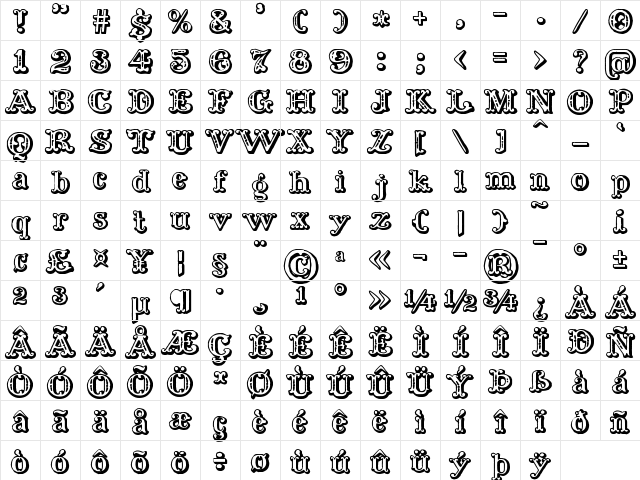
zai Arte Della Calligrafia 1929 Regular
Foundry: ZAI
Designer: Tomasz Skowro￿ski
Design Context for zai Arte Della Calligrafia 1929
zai Arte Della Calligrafia 1929 is a composed and adaptable typeface that performs quietly and consistently across a wide range of design contexts.